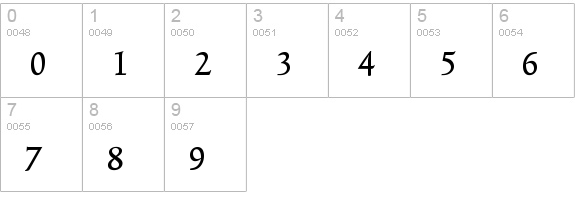
TriniteNo2-MediumWideTab is a versatile and dynamic font that effortlessly combines modernity with a touch of elegance. Created with meticulous attention to detail, this font offers a perfect balance between readability and style, making it ideal for a wide range of design projects. With its medium weight and slightly widened letters, TriniteNo2-MediumWideTab adds a unique and eye-catching element to any typographic composition. The clean lines and well-defined curves of each character contribute to a polished and professional appearance. This font is particularly well-suited for headlines, titles, and branding materials, as it commands attention without overpowering the overall design. Whether it's for digital or print media, TriniteNo2-MediumWideTab delivers a crisp and clear message that captivates the audience. One of the standout features of TriniteNo2-MediumWideTab is that it is a free font, allowing designers and enthusiasts alike to access its stunning aesthetics without any cost. It is freely available to download at FontsMarket.com, offering convenience and accessibility to all who wish to incorporate this font into their projects. In conclusion, TriniteNo2-MediumWideTab is a contemporary font that effortlessly fuses elegance and readability. Its medium weight and slightly widened letters make it an excellent choice for various design applications. With its availability as a free download at FontsMarket.com, TriniteNo2-MediumWideTab is a must-have for designers seeking a versatile and attractive font.